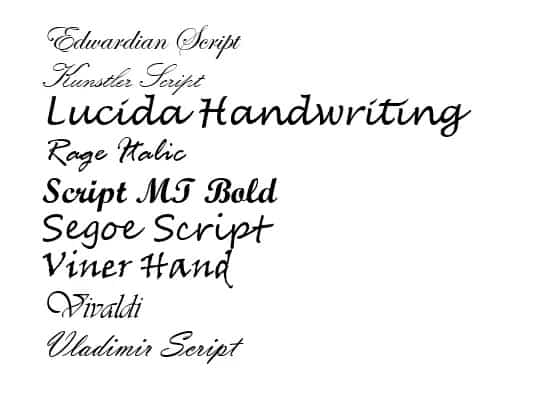
One of the best features of Microsoft Word is the selection of fonts available for use in your papers. These typefaces will undoubtedly improve the readability of your writing. To make it easier for readers to read, use a typeface that is appropriate for the text. Cursive typefaces are well-known among users and are commonly used for colorful invites, attractive text work, informal messages, and various other purposes.
What is a Cursive Font?
Cursive is a typeface style in which the letters are in contact with one another. That is, the writing’s characters are connected. The stylishness of the cursive font is one of its distinguishing features. In addition, if you use cursive fonts in your document, the letters will flow, and the text will appear handwritten.
What is the Best Cursive Font in Microsoft Word?
There are a plethora of good cursive fonts that would look fantastic on your text. If you’re seeking some of the greatest cursive fonts in Microsoft Word, you should read the following information attentively. I’ve compiled a list of some of the best cursive fonts, and we’re confident you’ll enjoy them.
Some of the Best Cursive Fonts in Microsoft Word
Microsoft Word already has hundreds of cursive fonts. However, because most people do not recognize the names of these fonts, they do not make the best use of them. Another factor is that individuals do not have time to look over all of the fonts available. As a result, I’ve compiled a list of some of the most excellent cursive fonts for usage in your word document. The typefaces listed below are currently accessible in Microsoft Word, and you can easily format your text with them.
Edwardian Script
Kunstler Script
Lucida Handwriting
Rage Italic
Script MT Bold
Segoe Script
Viner Hand
Vivaldi
Vladimir Script